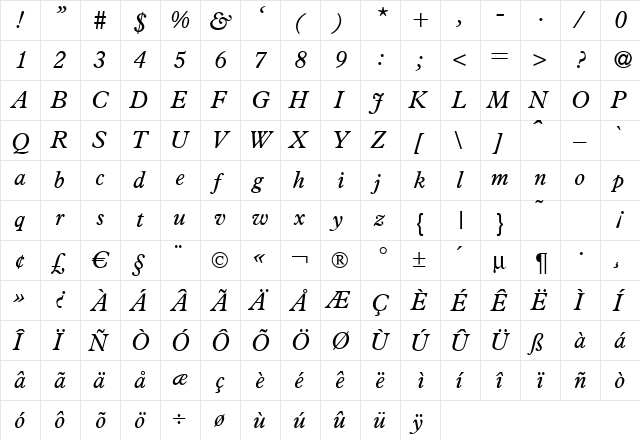
P761-Roman Italic
Design Context for P761-Roman Typeface
P761-Roman takes a measured approach to typography — its balanced proportions and neutral character make it a reliable workhorse for both digital and print work. The dynamic lean of this cut emphasises speed and emphasis in any layout.
Pro Tip: Try P761-Roman for annotation and caption copy alongside an upright companion — the contrast in angle creates a dynamic but ordered typographic system.